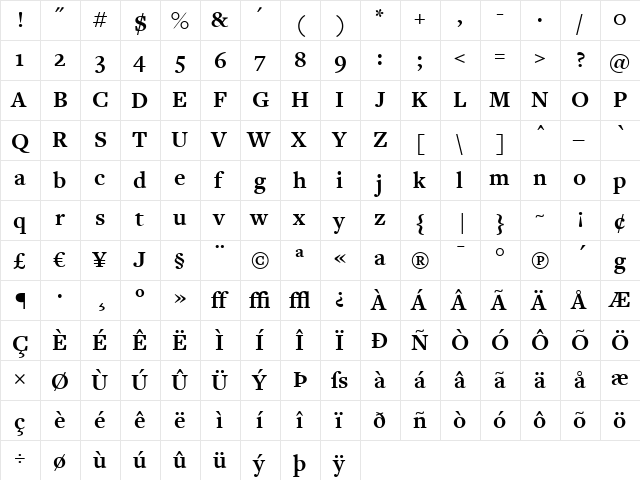
FreightText Bold Font Preview
FreightText Bold
FreightText Bold Font Details
| Foundry | Joshua Darden & Phil's Fonts, Inc |
| Designer | Joshua Darden |
Design Context for FreightText Typeface
FreightText takes a measured approach to typography — its balanced proportions and neutral character make it a reliable workhorse for both digital and print work. The heavy weight commands attention and anchors typographic hierarchies.